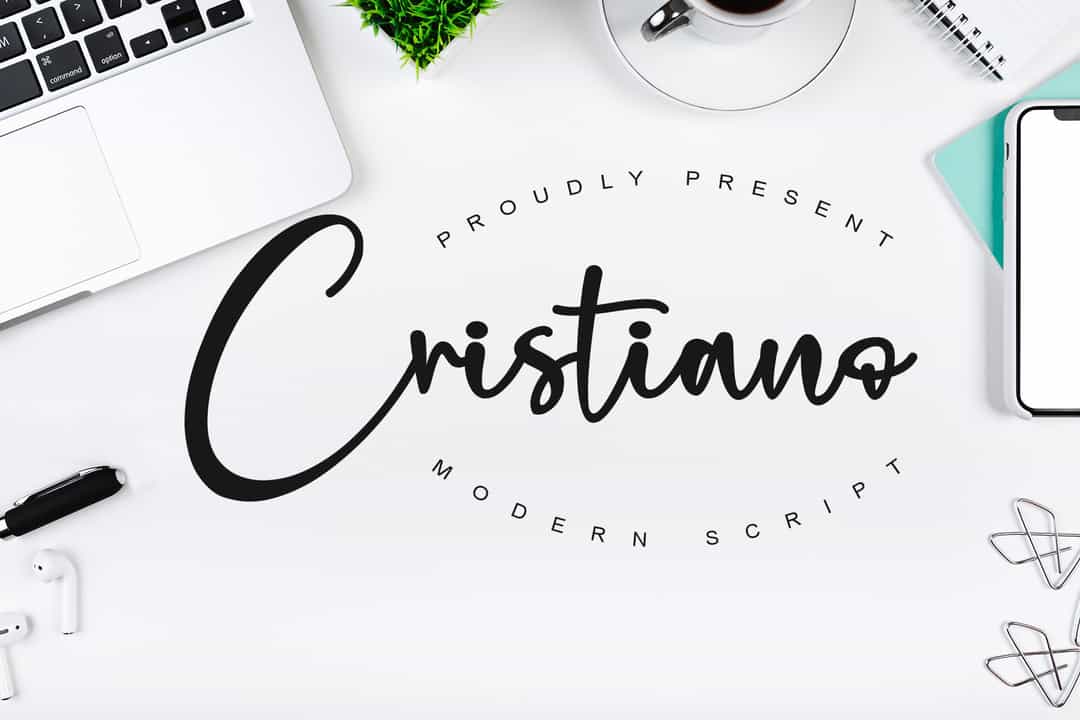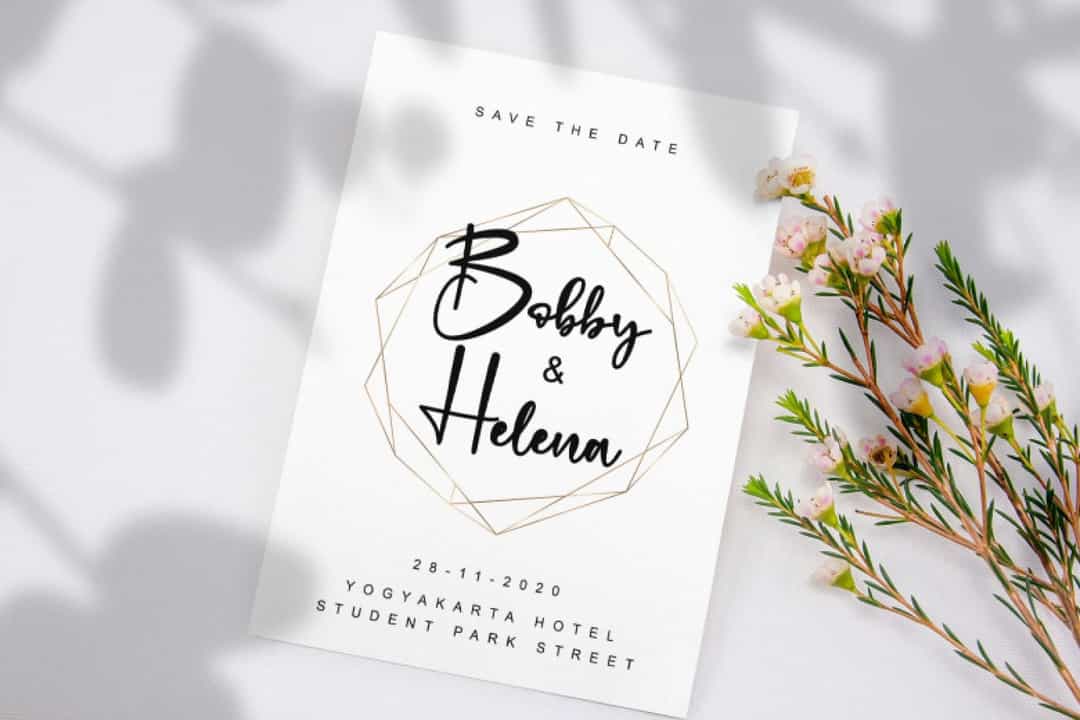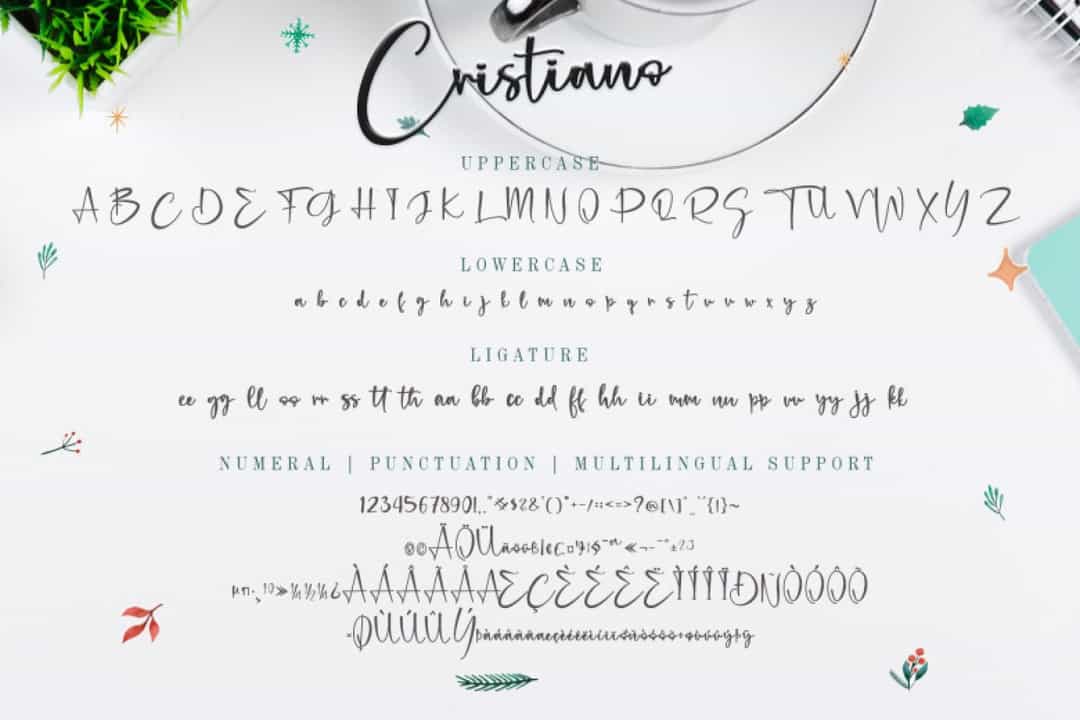
Cristiano Handwritten font is an exquisite minimal script typeface with a stunning modern, luxurious and elegant aesthetic. Take advantage of its versatility to design stunning wedding invitations, stationary art projects, tweets on social networks or anything else you may need!